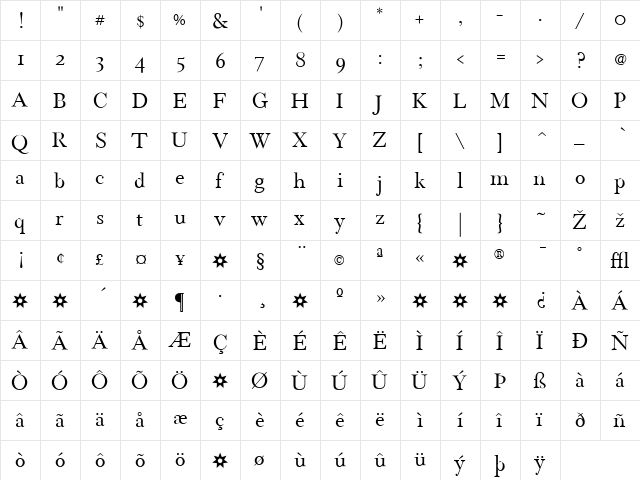
Wessex Regular
Design Context for Wessex Typeface
Wessex takes a measured approach to typography — its balanced proportions and neutral character make it a reliable workhorse for both digital and print work.